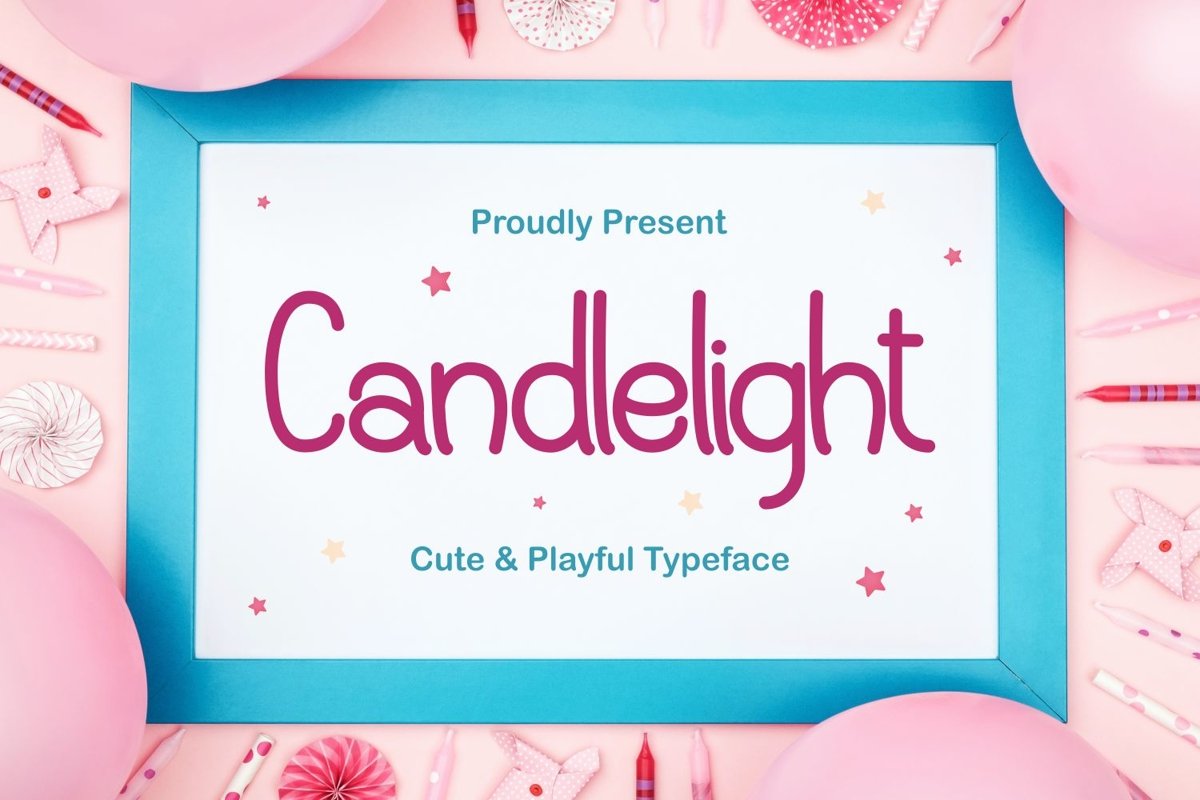
Candlelight is san serif display come with cute and playful themes. We wanted to create the most readable and clean. It matches applies in some designs such as the logotype, brand, packaging, quotes, cute poster, kids shirt, cover book, birthday invitation and more custom design. The features uppercase, lowercase, numeral, punctuation & symbol, multilingual support, PUA encoded (fully accessible without additional design software). What includes : • Candlelight.ttf • Candlelight.otf